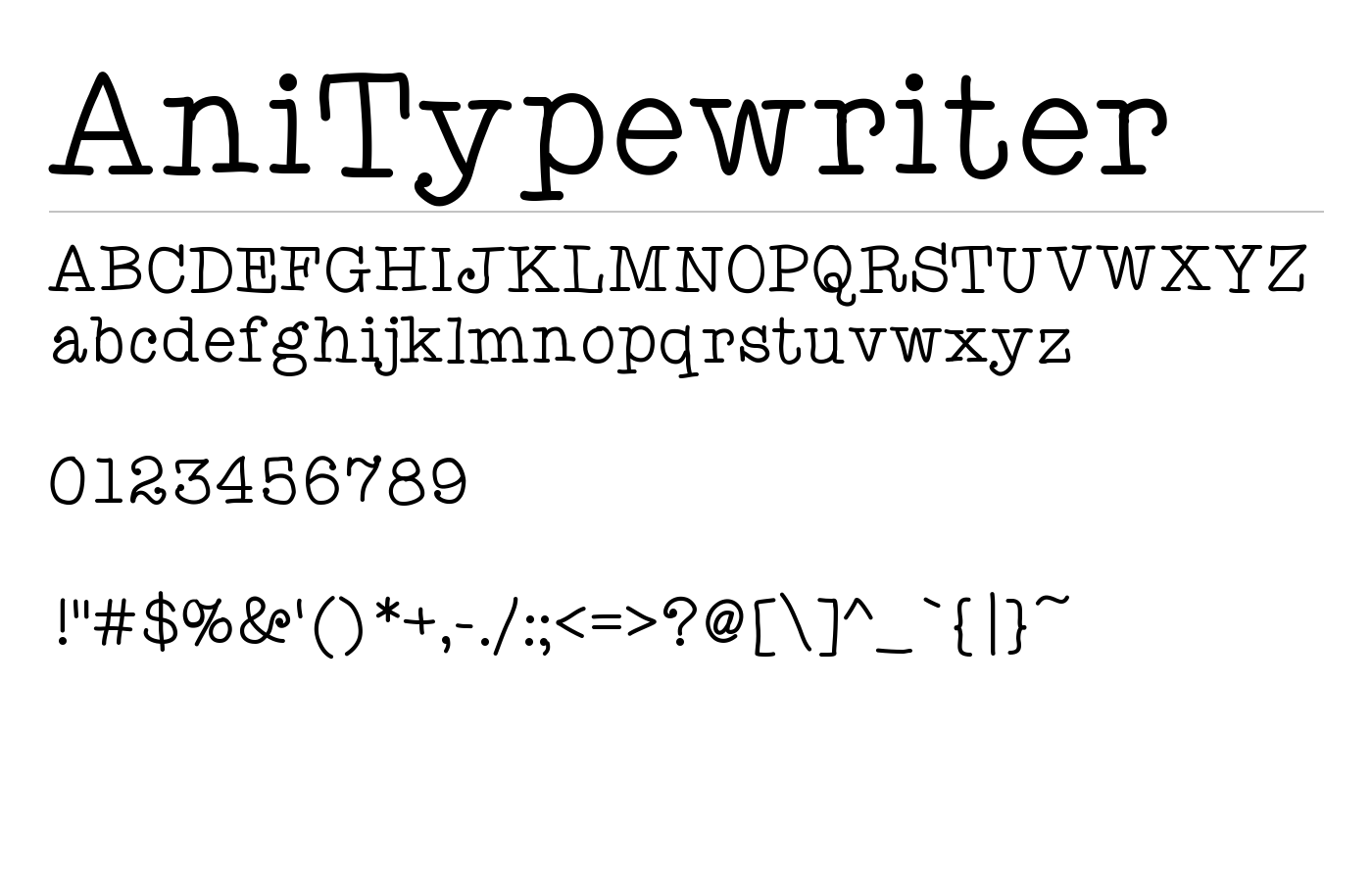
AniTypewriter is a playful, monospaced typewriter-style font with a casual and slightly uneven stroke texture that gives it a hand-crafted, vintage feel. Its regular weight, moderate x-height, and quirky letterforms make it perfect for designs seeking a nostalgic yet approachable personality, especially in creative projects, editorial layouts, and retro-themed branding. This font works well for adding character and warmth in headlines, logos, and packaging where a touch of personality and authenticity is desired.
AniTypewriter Font
About AniTypewriter Font